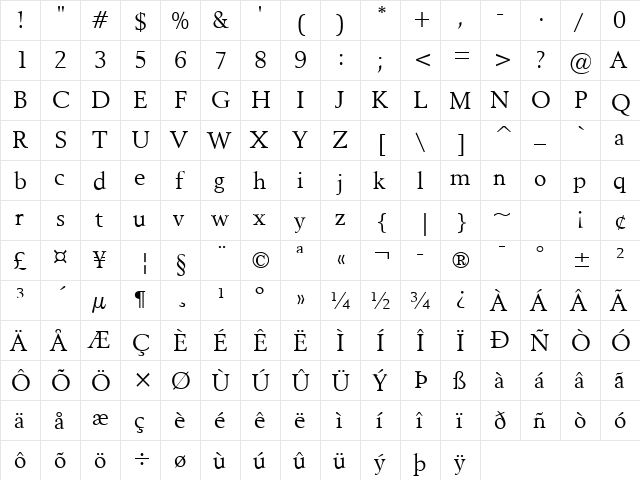
Song & Dance 2 Regular
Design Context for Song & Dance 2 Typeface
Song & Dance 2 takes a measured approach to typography — its balanced proportions and neutral character make it a reliable workhorse for both digital and print work.